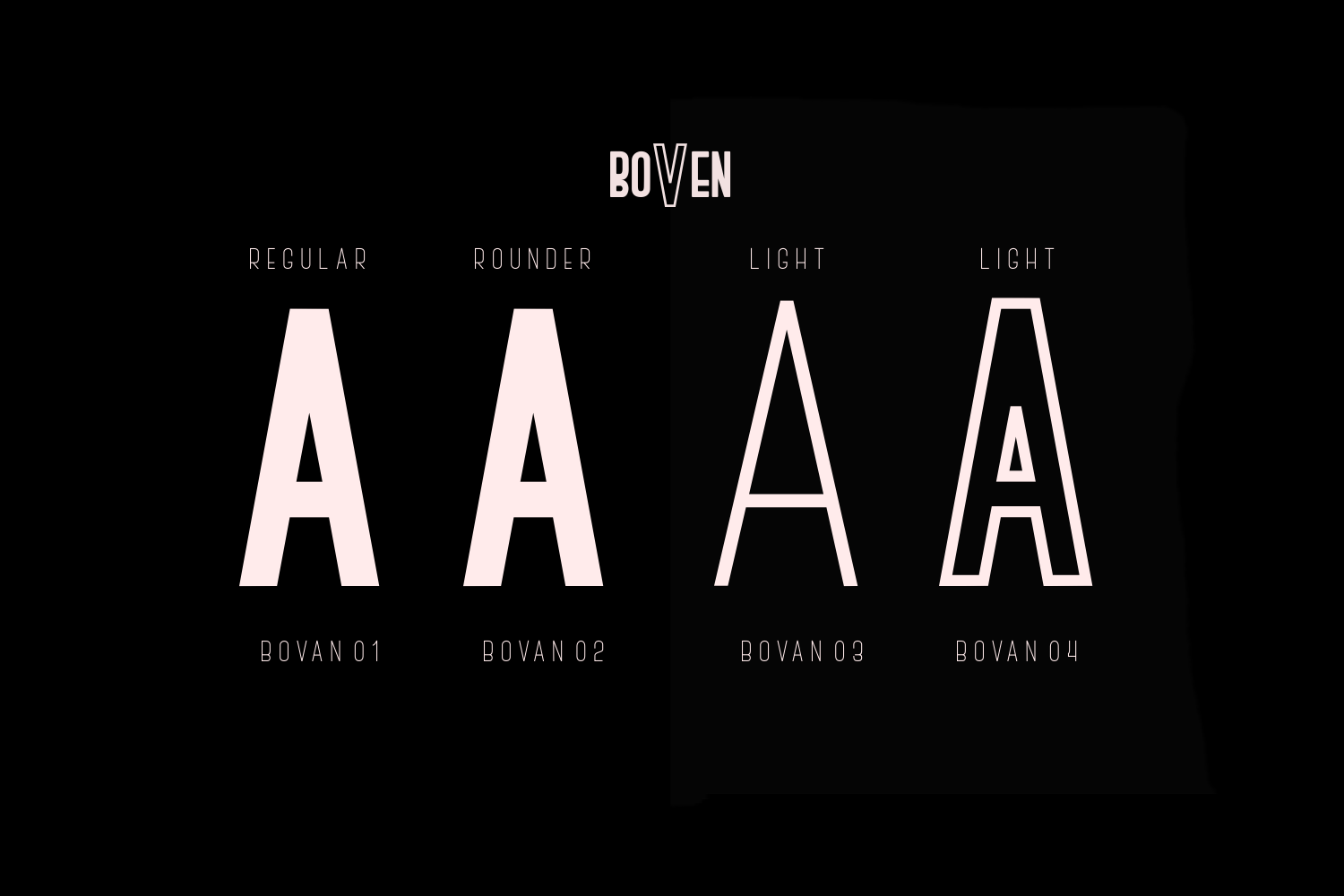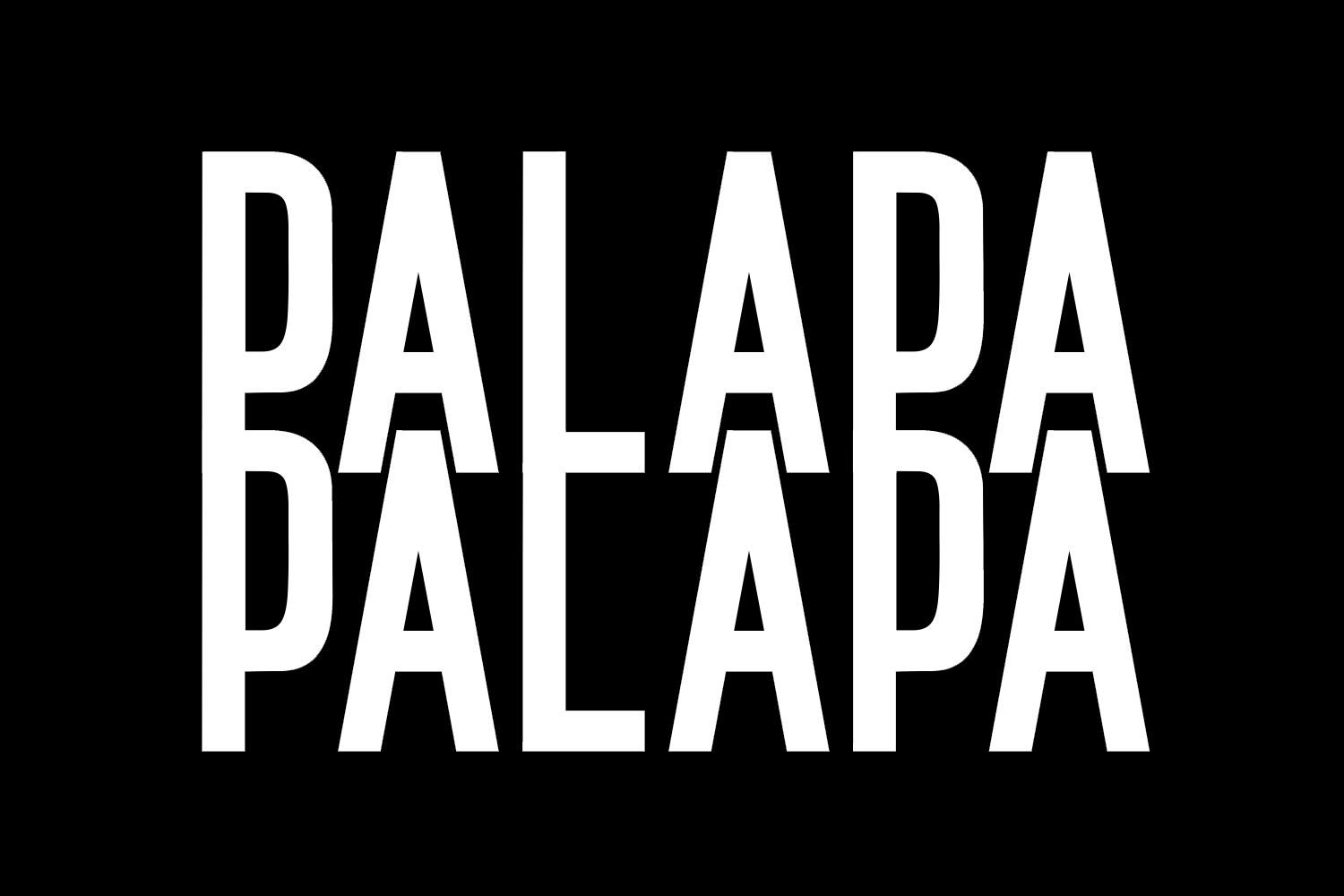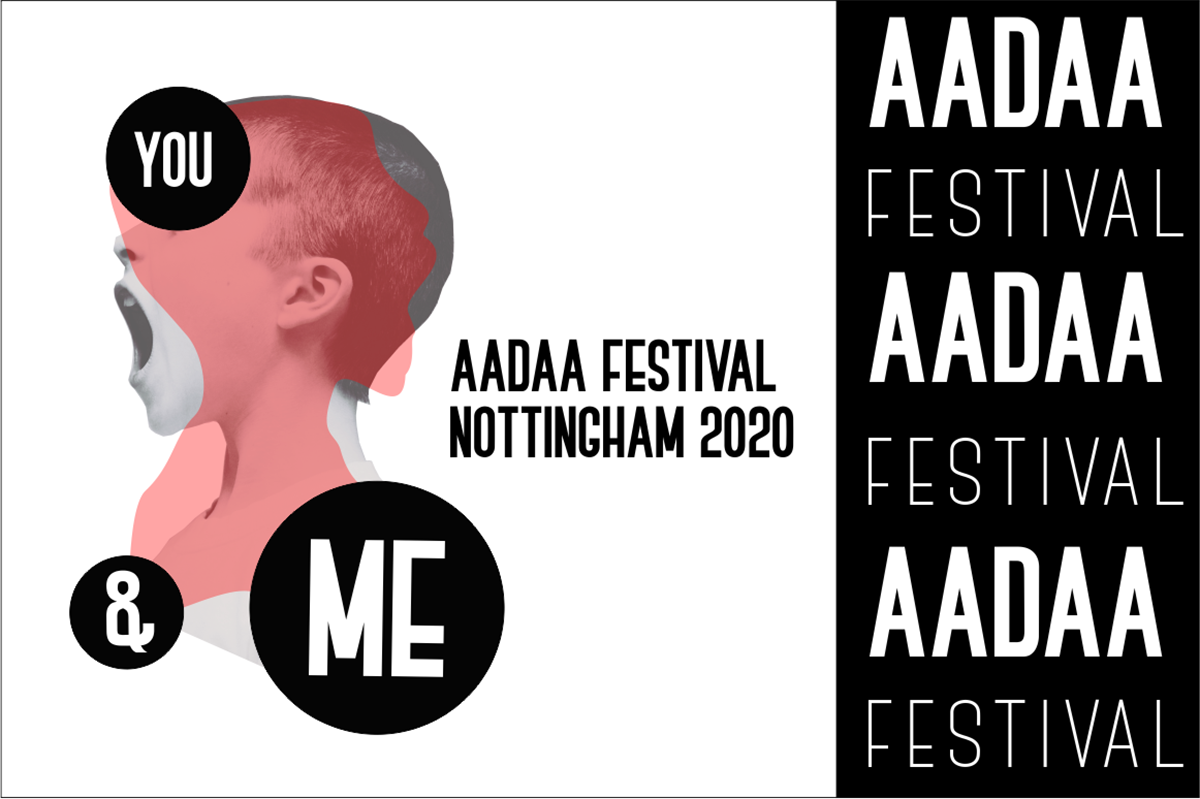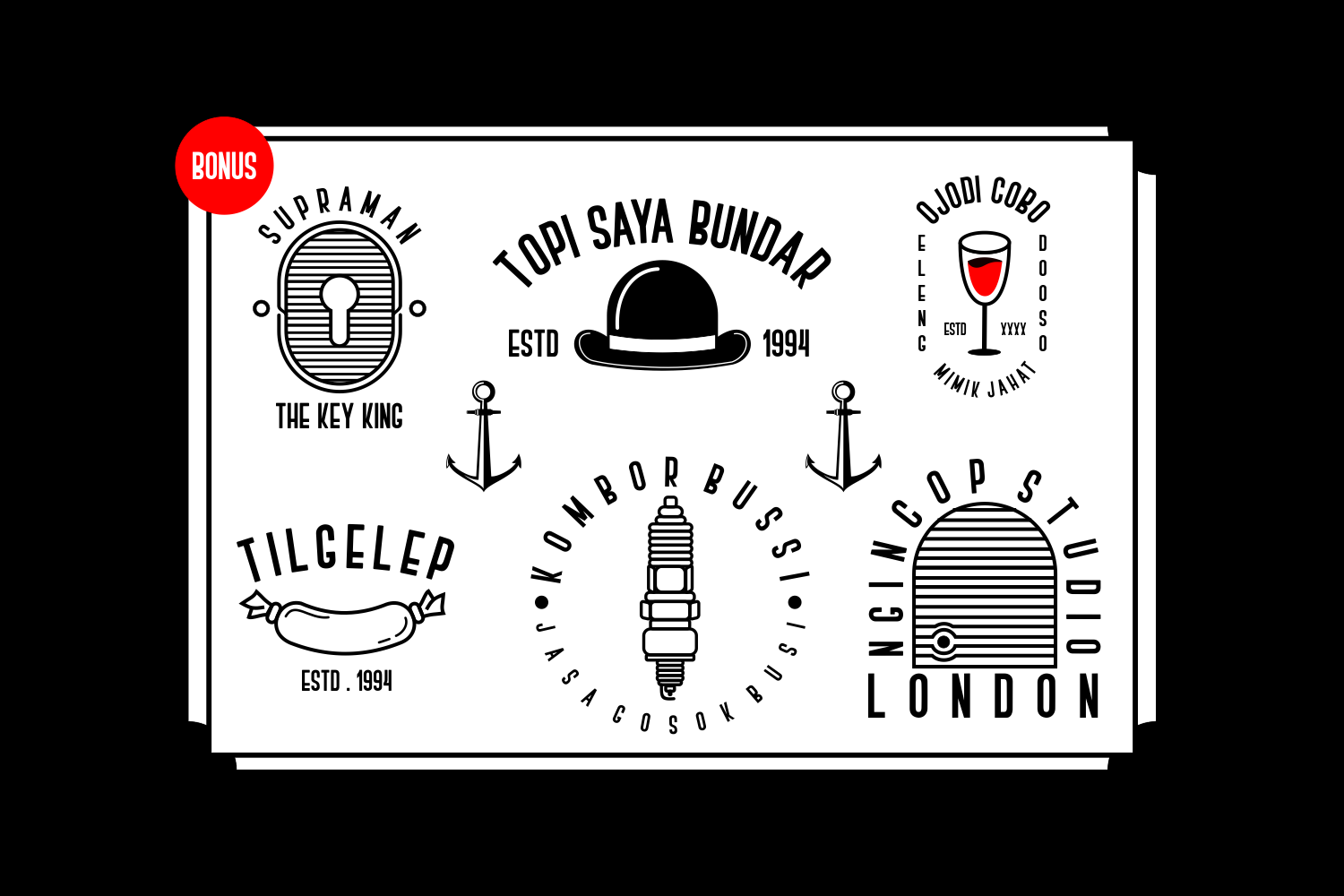
Boven Free Font
Boven Free Font is a modern made-up masculine font with various fonts available in it a minimalist and strong touch makes it look more elegant. Boven Free Font looks elegant and masculine makes it suitable in use for anything and anywhere, such as poster display, book cover, packaging, cover film, greeting cards, logos, and more. This free typeface was designed by talented Muhammad Romzul Khoir. If you like it don’t forget to check out the full version.